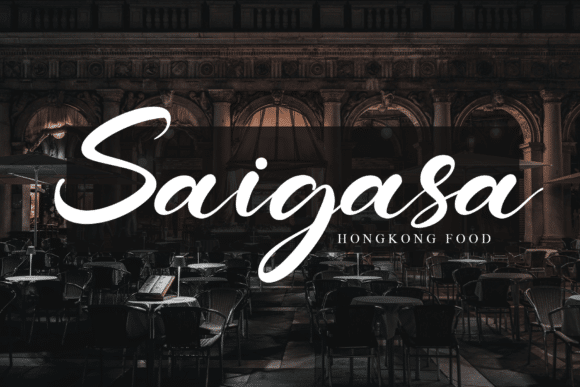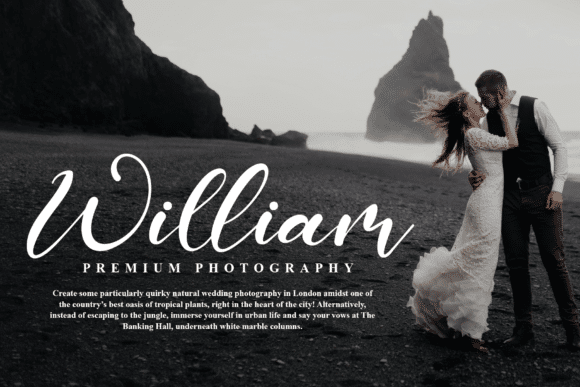
Sage Leaves is a modern and playful handwritten script font. It’s great for crafters and designers. It looks stunning on wedding invitations, thank you cards, quotes, greeting cards, logos, business cards and every other design which needs a handwritten touch. Created by Kong Font Studio